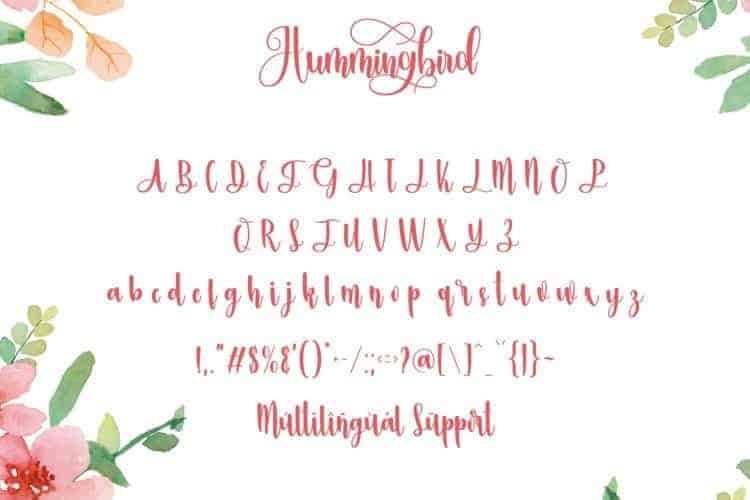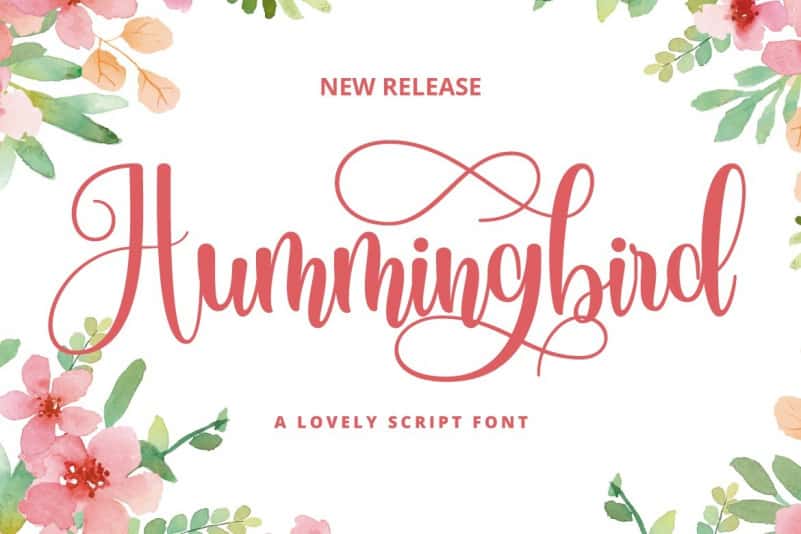
Hummingbird Script Font is a new romantic calligraphy typeface. This is another lovely modern calligraphy typefaces, which is combining the style of classic calligraphy with an modern style. It’s design and shared by FallenGraphic Studio. It’s a beautiful and elegant script font. Fall in love with its authentic feel and use it to create gorgeous wedding invitations, beautiful stationary art, eye-catching social media posts, and cute greeting cards.